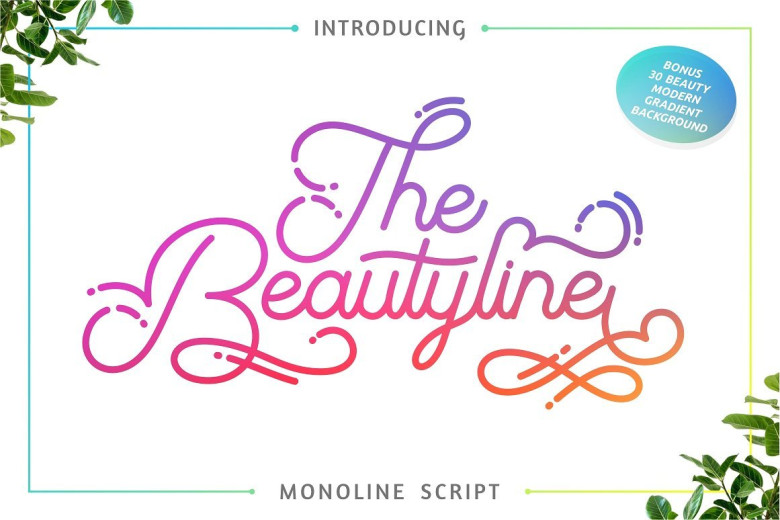
The Beautyline Script Font
Hi designer! A new script font in a modern, simple and elegant style. Introducing The Beautyline Font! The Beautyline designed by  PutraCetol Studio. The Beautyline is a modern monoline script typeface. Suitable for Logos, Tittle, tagline, Tshirt, Handwritten Quotes, product packaging, poster, merchandise, social media, labels, branding, greeting cards, etc.